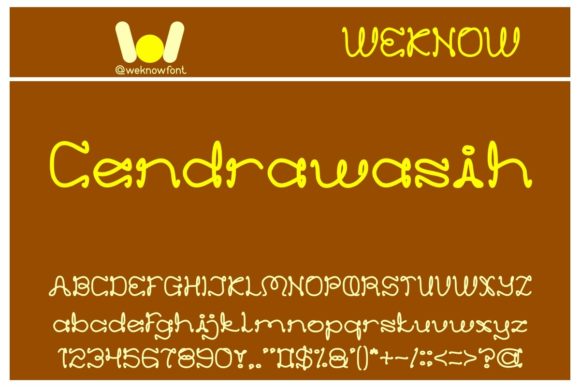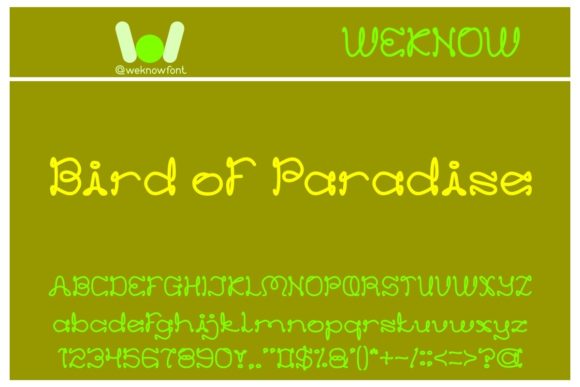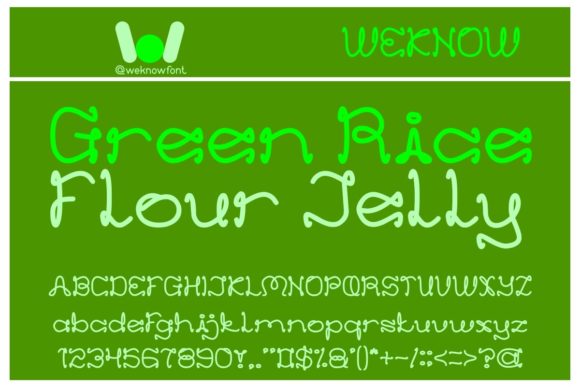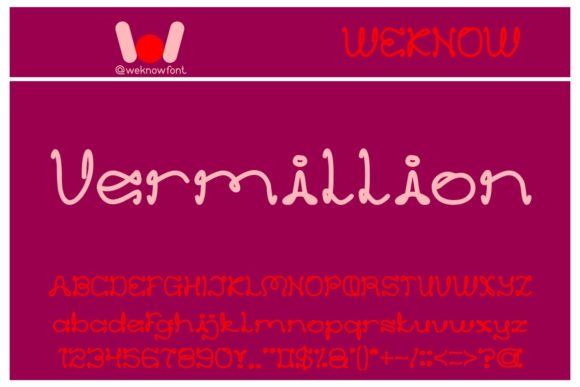
Introducing Everything More Font: Elevate Your Designs with a Unique Handwritten Style
In the world of design, fonts play a crucial role in conveying messages, expressing creativity, and building brand identities. For designers and crafters looking for a distinctive and versatile font to enhance their projects, Everything More Font is an excellent choice. This unique handwritten font is suitable for a wide range of themes and applications, making it an indispensable tool in your design arsenal.
What Makes Everything More Font Stand Out?
Everything More Font is not just another font; it’s a design statement. Its unique handwritten style offers a fresh and modern look that can instantly elevate your designs. Whether you’re working on logos, logotypes, headlines, or any other creative project, this font brings a touch of personality and elegance. Its versatility means it can be used across various industries and themes, from corporate identity and brand identity to apparel, posters, music, movies, games, magazines, books, comics, cartoons, and even digital platforms like YouTube and Instagram.
Applications of Everything More Font
The possibilities are endless with Everything More Font. Here are some of the key areas where this font can make a significant impact:
- Logos and Logotypes: Create memorable and distinctive logos that stand out from the crowd.
- Headlines: Add a professional and stylish touch to your headlines, making them more engaging and readable.
- Corporate and Brand Identity: Develop a consistent and recognizable brand image with a font that exudes professionalism and creativity.
- Apparel Industry: Design trendy and appealing apparel with a font that’s both stylish and legible.
- Posters, Music, Movies, and Games: Add a unique flair to your posters, movie titles, game titles, or music album covers.
- Magazines, Books, Comics, and Cartoons: Enhance the readability and aesthetic appeal of your publications with a font that’s easy on the eyes.
- YouTube, Instagram, and Websites: Use Everything More Font to create engaging thumbnails, Instagram posts, or website content that captures attention.
Why Choose Everything More Font?
Choosing Everything More Font for your design projects comes with several benefits:
- Uniqueness: Stand out in a crowded design space with a font that offers a fresh and distinctive look.
- Versatility: Use it across various projects and industries, thanks to its adaptable and stylish design.
- Readability: Despite its unique style, Everything More Font maintains high readability, making it suitable for both headings and body text.
- Creativity: Unleash your creativity with a font that encourages experimentation and innovation in your designs.
Tips for Using Everything More Font Effectively
To get the most out of Everything More Font, consider the following tips:
- Mix and Match: Combine Everything More Font with other fonts to create a unique visual hierarchy.
- Play with Sizes: Experiment with different font sizes to emphasize certain elements of your design.
- Color Matters: Choose colors that complement the style and theme of your project.
- Consistency is Key: Use the font consistently across your design project to maintain a cohesive look.
Everything More Font is a game-changer for designers and crafters looking to add a unique and stylish touch to their projects. Its versatility, readability, and distinctive style make it an excellent choice for a wide range of applications. Whether you’re working on a corporate identity, an apparel design, or a creative project, Everything More Font is sure to elevate your designs and make them stand out.